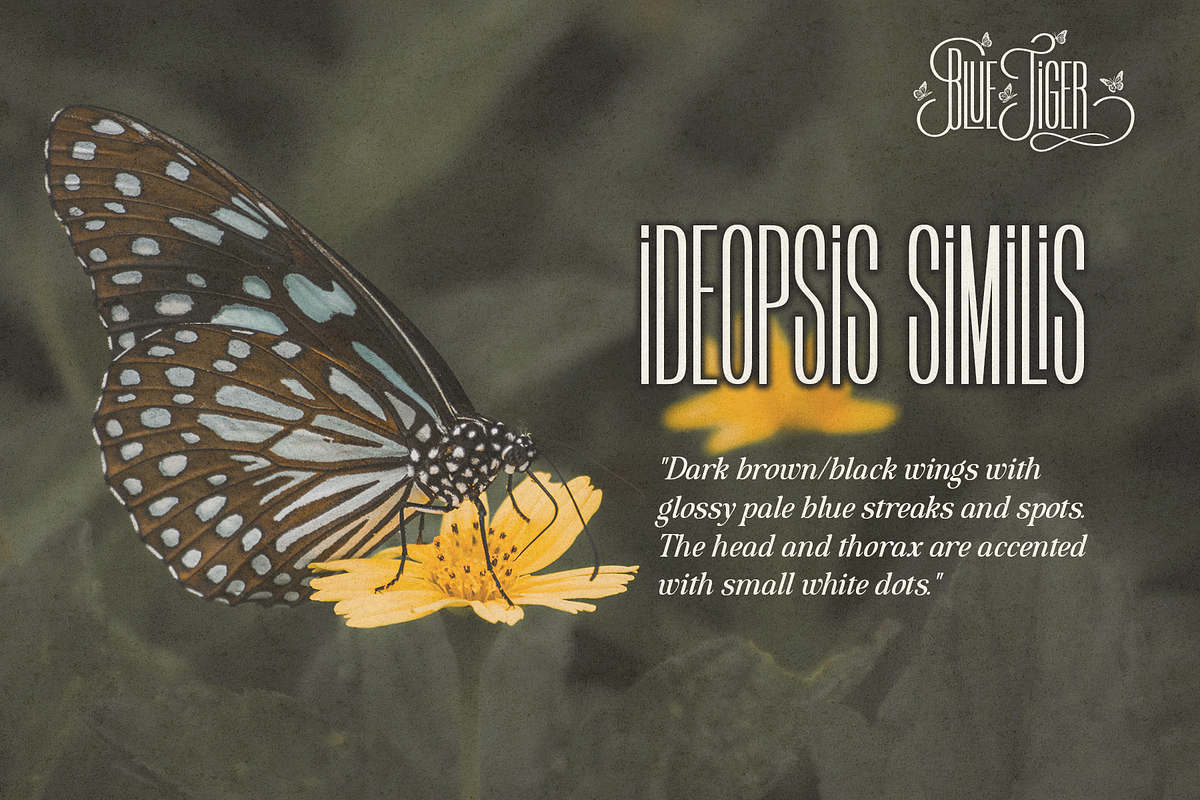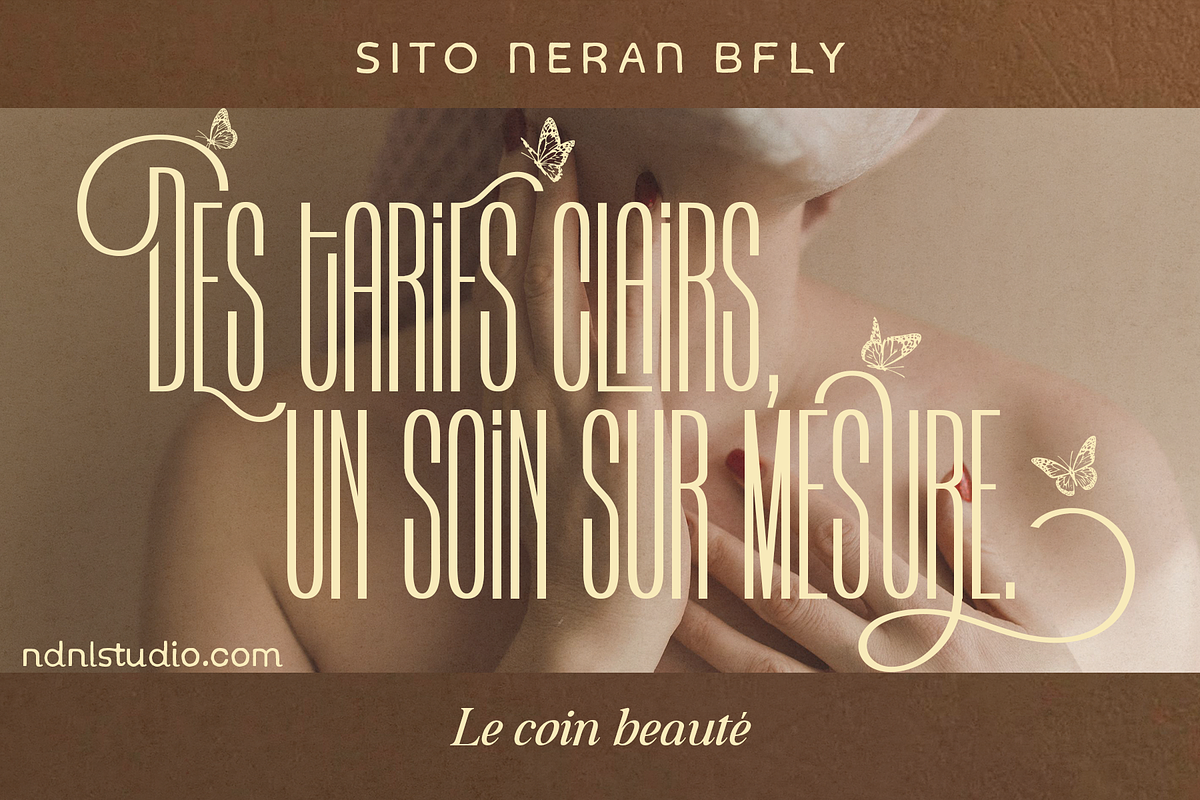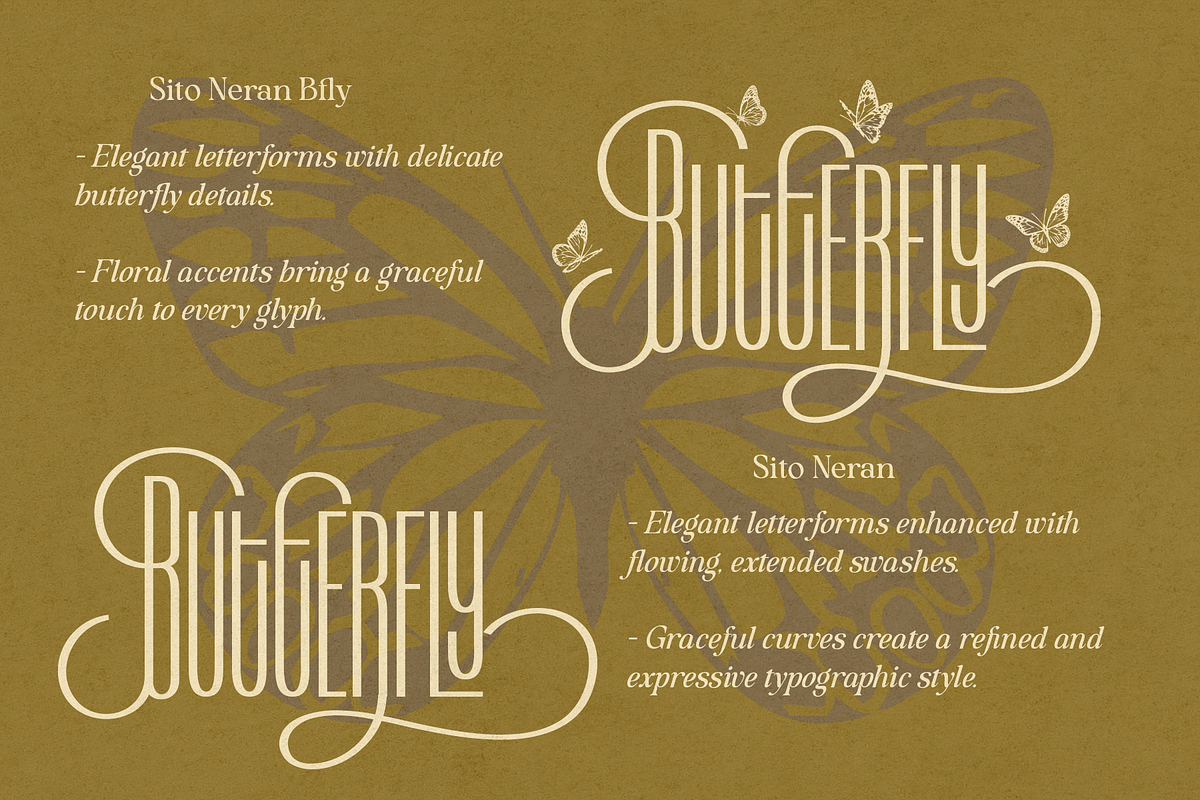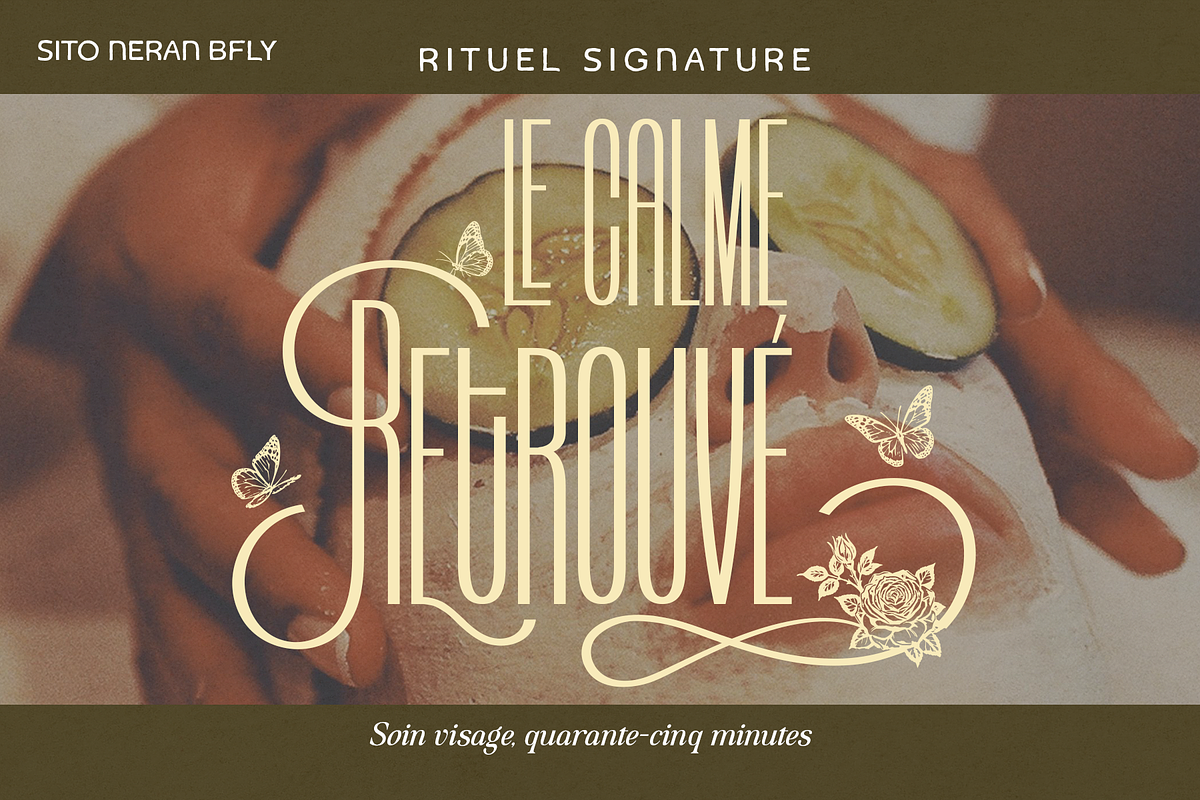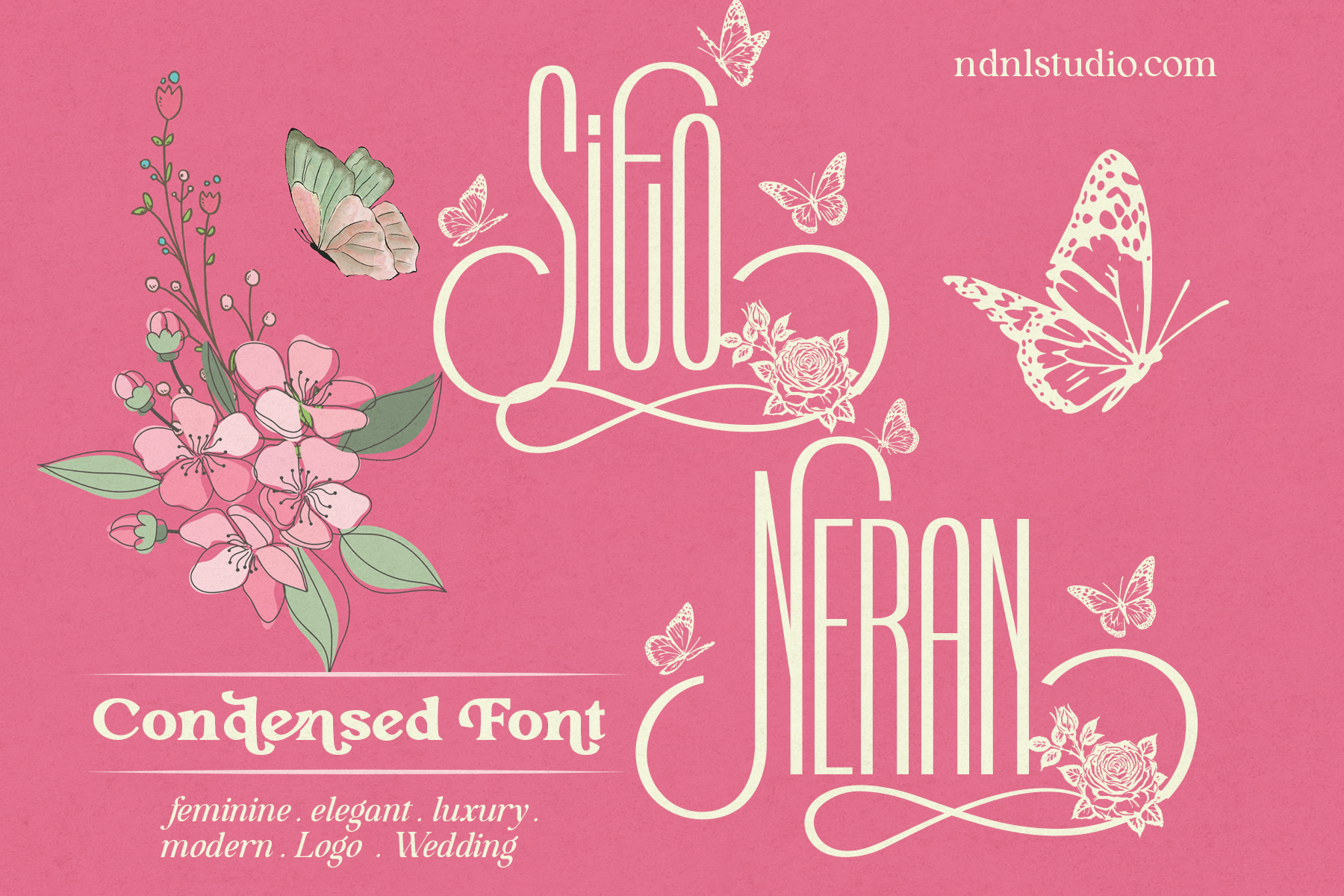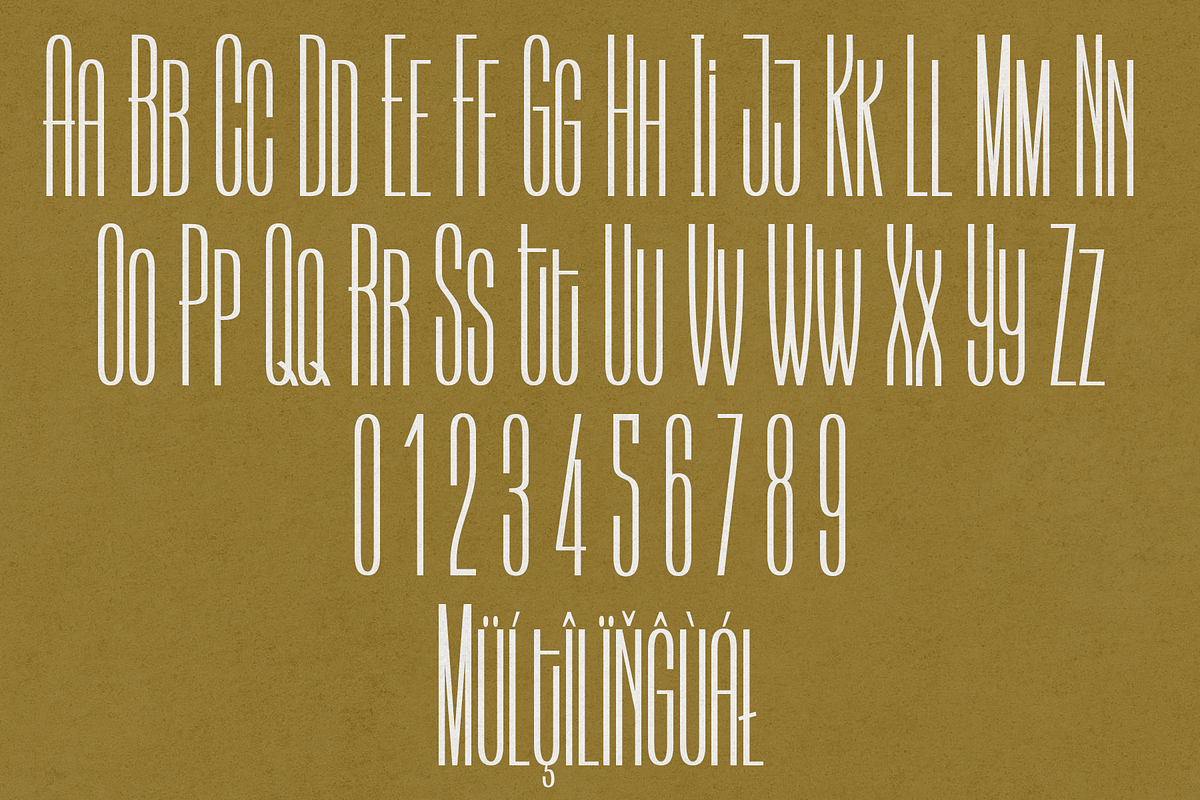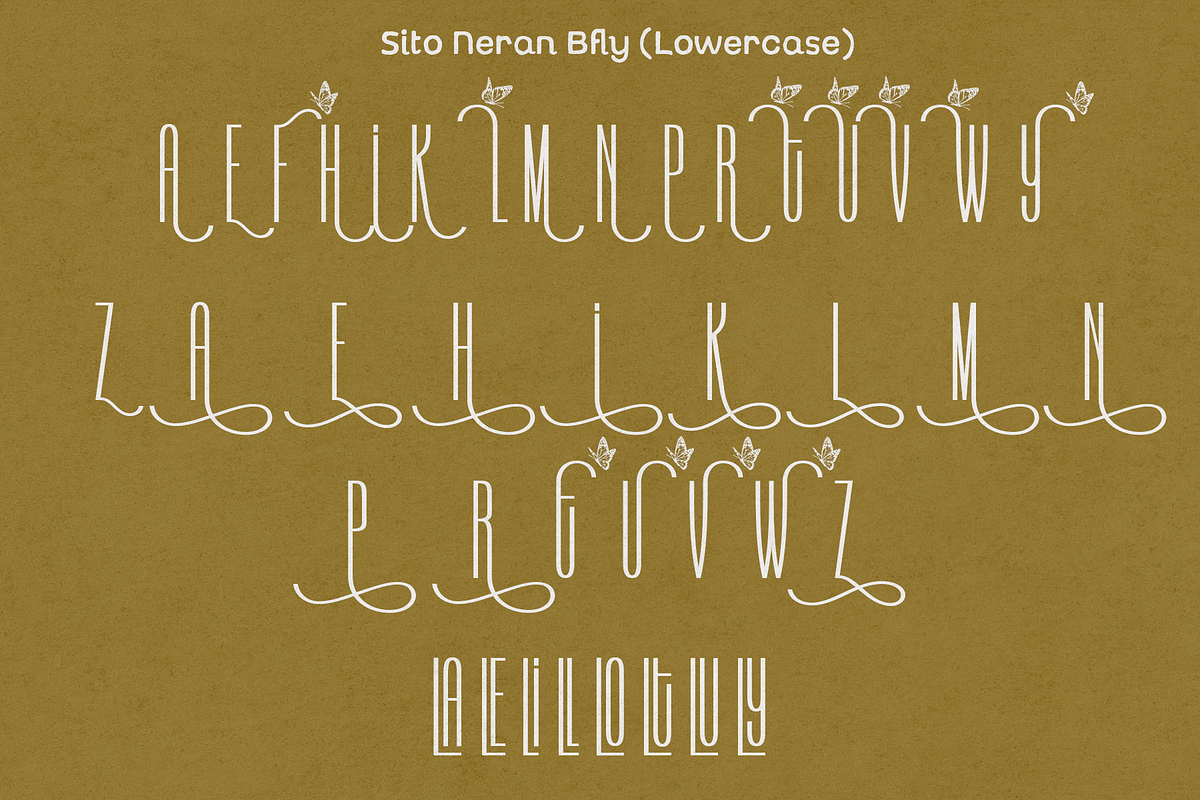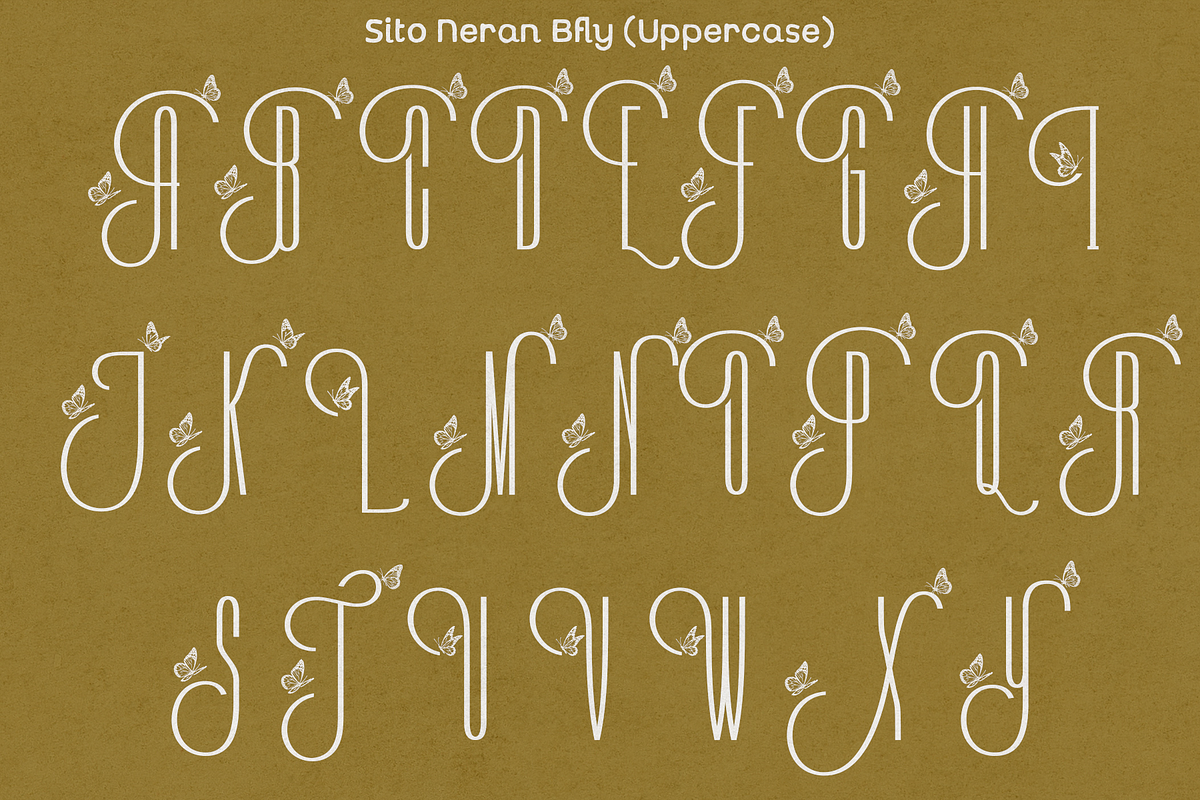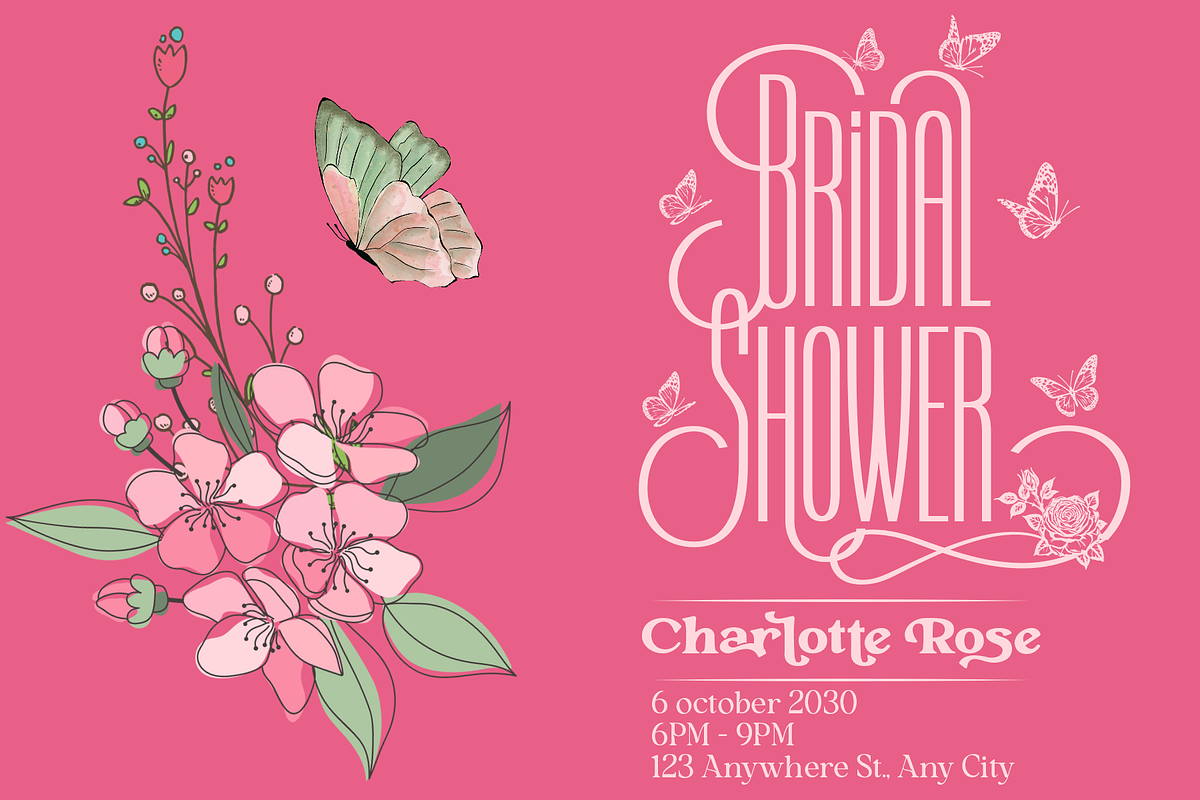
Sito Neran - Condensed Font
Sito Neran is a feminine and elegant condensed display font that combines slender, elongated letterforms with graceful curves and decorative swashes. Its refined proportions and flowing details create a sophisticated look with a romantic and luxurious character. In particular, the delicately incorporated butterfly motifs gracefully complement the line work, adding a sense of ethereal freedom and captivating charm to the overall design.
Designed to make a statement, Sito Neran works beautifully for logos, branding, fashion, wedding stationery, invitations, beauty products, packaging, editorial designs, posters, and elegant headlines. Its decorative flourishes add an artistic touch, while the condensed structure helps create a distinctive and stylish visual presence.
– Character set A-Z
– Uppercase & Lowercase
– Numerals & Punctuation
– Accented Characters (West Europe)
– Ligatures
– Extended Character Set